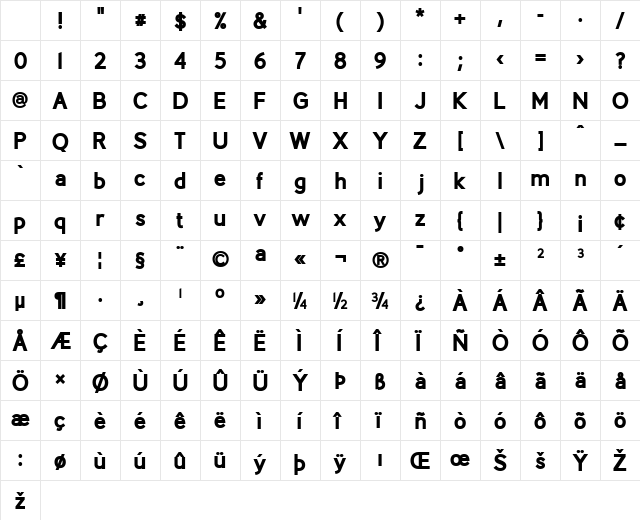
Complete Berlin XBold XBold glyph index. Displaying only characters natively supported by Berlin XBold XBold font.
Berlin XBold is a composed and adaptable typeface that performs quietly and consistently across a wide range of design contexts. Its bold stroke weight gives it real presence on the page.